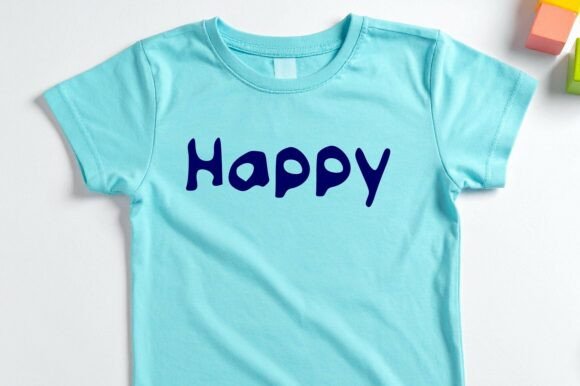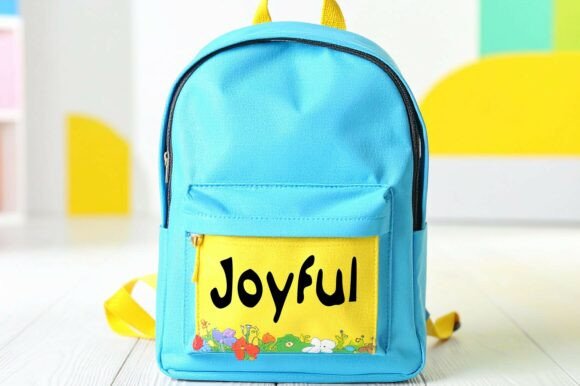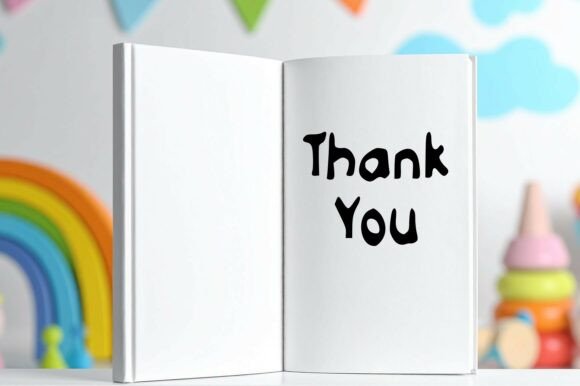
Introduction to Children Kids Font
Imbued with the purest essence of youthful exuberance and playful charm, Children Kids is more than just a display font.
It’s a delightful visual symphony of rounded, bouncy letterforms that perfectly captures the buoyant spirit of childhood Each letter in this charming typeface speaks volumes, instilling your designs with a distinctive character and a welcoming warmth that appeals instantly to the young and the young at heart.